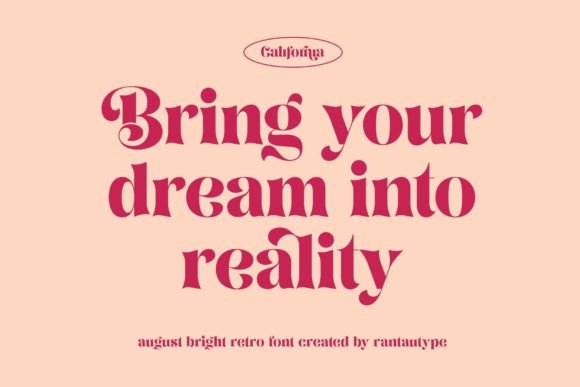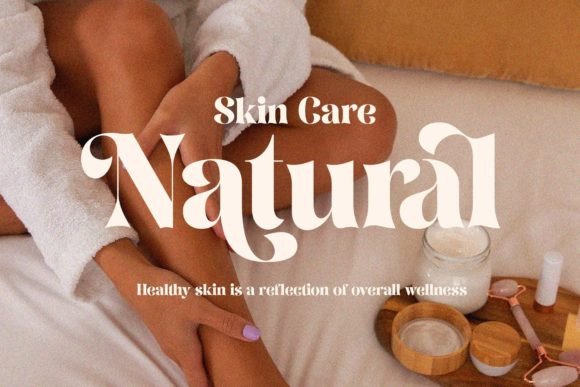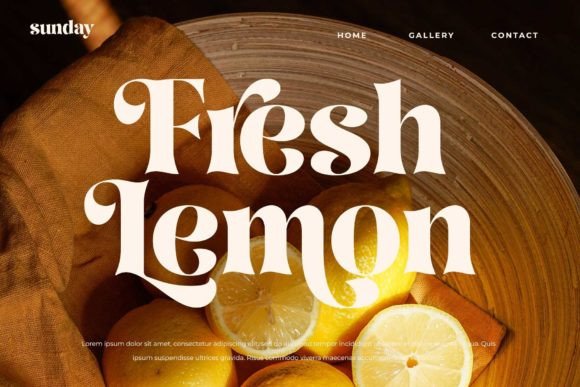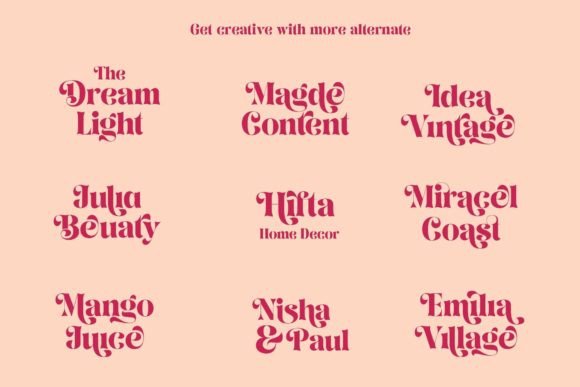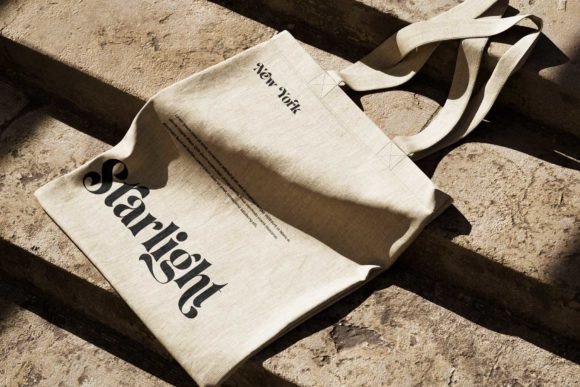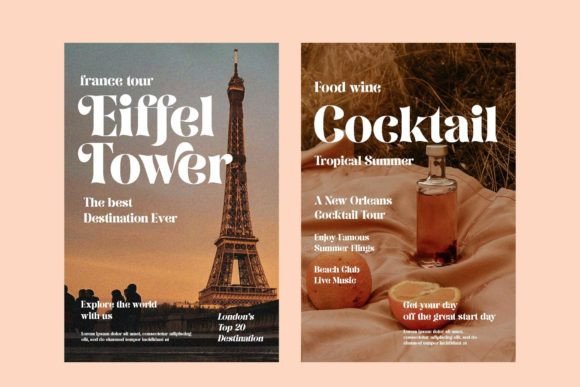
Introducing August Bright Font: Elevate Your Designs with Modern Elegance
In the world of typography, a font can make or break a design. For designers and crafters looking to add a touch of sophistication and modernity to their work, the August Bright Font is an excellent choice. This stunning serif font is perfect for a wide range of applications, from logos and quotes to social media graphics, business cards, and web designs.
What is August Bright Font?
August Bright Font is a modern and elegant serif font designed to bring a sense of luxury and refinement to any design project. Its clean lines, precise curves, and balanced proportions make it an ideal choice for designers seeking to create visually appealing and professional-looking designs. Whether you’re working on a branding project, creating social media content, or designing a website, August Bright Font is sure to impress.
Key Features of August Bright Font
- Modern and Elegant Design: August Bright Font boasts a sleek and sophisticated design that is perfect for creating modern and elegant designs.
- Serif Font: The font features classic serifs that add a touch of tradition and sophistication to any design.
- Highly Versatile: August Bright Font can be used for a wide range of applications, including logos, quotes, social media graphics, business cards, web designs, and more.
- Easy to Read: The font is designed to be highly legible, making it perfect for body text, headings, and titles.
- Scalable: August Bright Font is optimized for use at various sizes, ensuring that it looks great whether it’s used for a tiny icon or a large headline.
Use Cases for August Bright Font
August Bright Font is an incredibly versatile font that can be used in a variety of design projects. Here are some examples of how you can use this beautiful font:
- Logo Design: Create a stunning logo for your brand with August Bright Font. Its modern and elegant design makes it perfect for businesses looking to establish a professional image.
- Social Media Graphics: Use August Bright Font to create eye-catching social media graphics, including Facebook posts, Instagram stories, and Twitter headers.
- Business Cards: Add a touch of sophistication to your business cards with August Bright Font. Its clean lines and precise curves make it perfect for printing.
- Web Design: Use August Bright Font to create beautiful website headers, titles, and body text. Its highly legible design ensures that your website looks professional and modern.
- Quotes and Posters: Create stunning quote posters and flyers with August Bright Font. Its elegant design makes it perfect for showcasing inspirational quotes and messages.
Why Choose August Bright Font?
With so many fonts available, why choose August Bright Font? Here are just a few reasons why designers and crafters love this beautiful serif font:
- Unique Design: August Bright Font features a unique and distinctive design that sets it apart from other serif fonts.
- High-Quality: The font is designed to be high-quality and precise, ensuring that it looks great in any design project.
- Versatile: The font is highly versatile and can be used for a wide range of design projects.
August Bright Font is a stunning serif font that is perfect for designers and crafters looking to add a touch of modern elegance to their work. Its clean lines, precise curves, and balanced proportions make it an ideal choice for a wide range of design projects, from logos and quotes to social media graphics, business cards, and web designs. With its unique design, high-quality construction, and ease of use, August Bright Font is sure to become a favorite in your design toolkit.